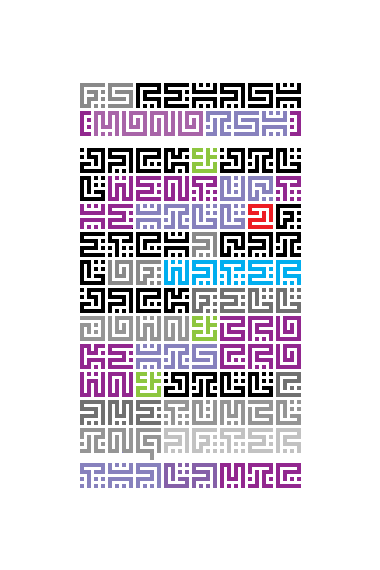
• Based on the logo for http://www.thememagazine.com/.
Fascinating pixel font reminiscent of the classic Snake game. Unlike your carefully composed demo pic, the sample text - "a quick brown fox..." mostly lower case - is quite legible. 10/10
Wonderful! You have taken the basic idea from the Theme logo and made it so much more. I agree with Frodo7 - it really is very legible
I'm lovin this. The lower case works wonders for me. Especially f,g & 4. Not keen on j though, looks too similar to the l.
A few other variations.
I really like this. Something different. Looks like an ancient letters. 10/10